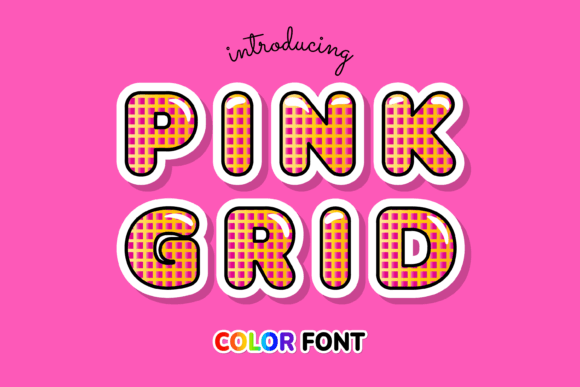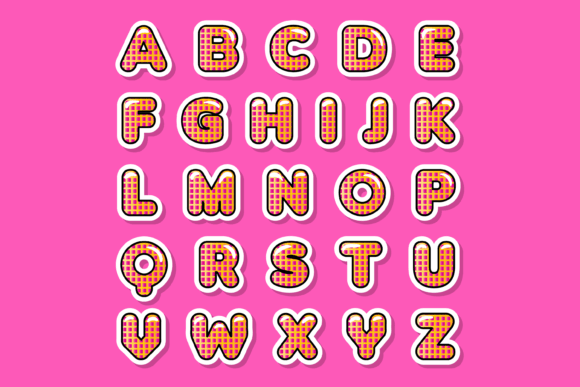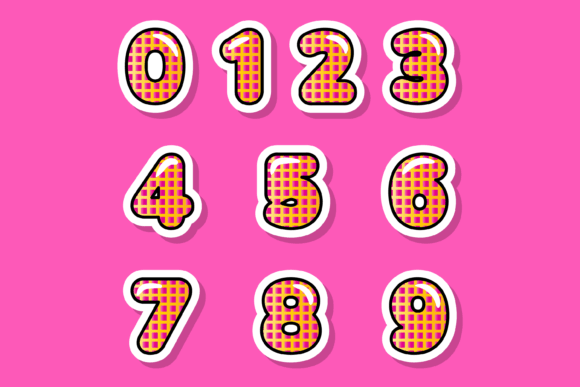
Pink Grid Font
About Pink Grid Font
Pink Grid is an exceptional color font that combines the coolness of a grid pattern with the vibrancy of a pink color palette. Its unique design and captivating visual appeal make it a perfect choice for various creative projects.
Whether you’re creating custom designs, engaging in DIY crafts, or working on any project that requires a touch of elegance and charm, Pink Grid will add a lovely touch and make your creations stand out.
This font’s grid pattern adds a modern and structured look to your designs, while the pink color palette brings a playful and vibrant feel. Its versatility allows you to use it in a wide range of applications, including social media posts, invitations, posters, and more.
With Pink Grid, your designs will have a distinctive and eye-catching appearance. The font’s color variations and grid elements provide a dynamic and energetic vibe, making it ideal for projects that aim to grab attention and make a statement.
Add a touch of sophistication and creativity to your next project with Pink Grid. Its cool color font will elevate your designs and leave a lasting impression on your audience. Whether you’re a designer, crafter, or creative enthusiast, Pink Grid is an amazing choice that will enhance your artistic endeavors.